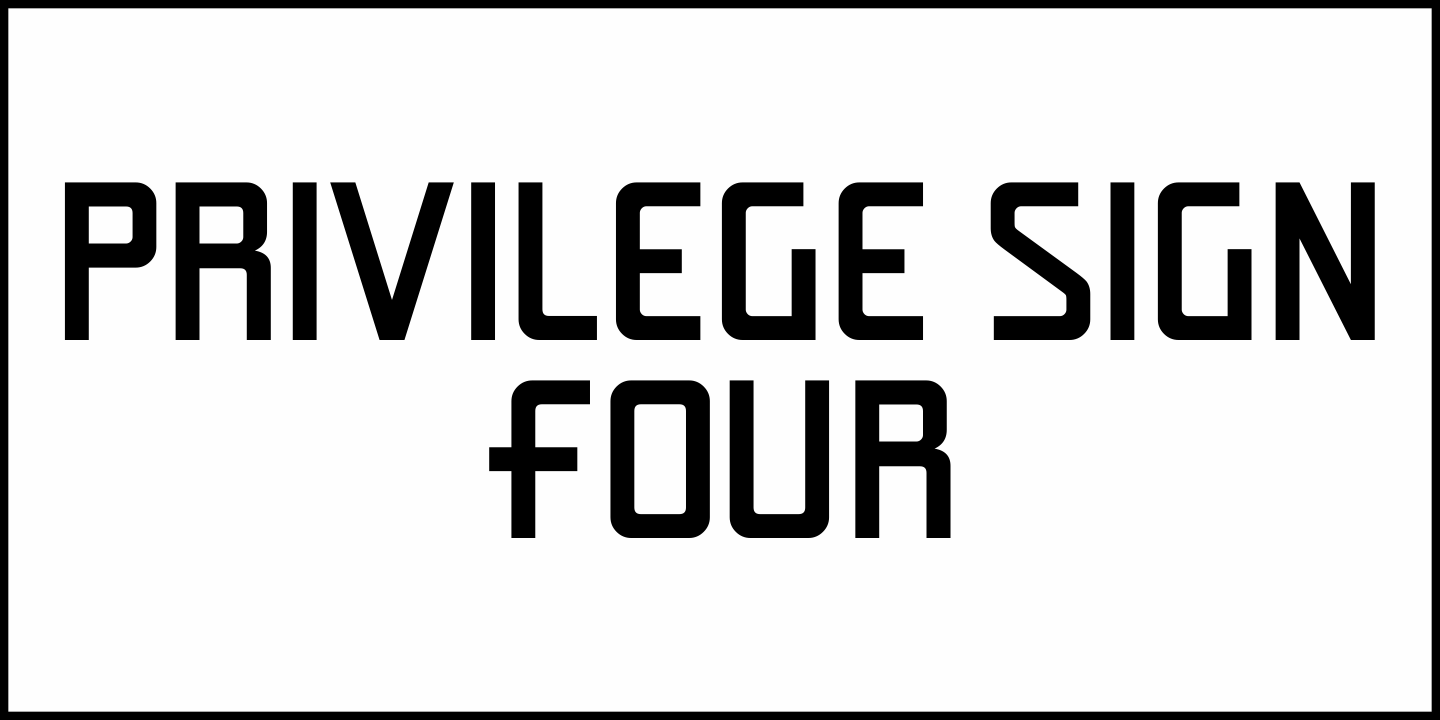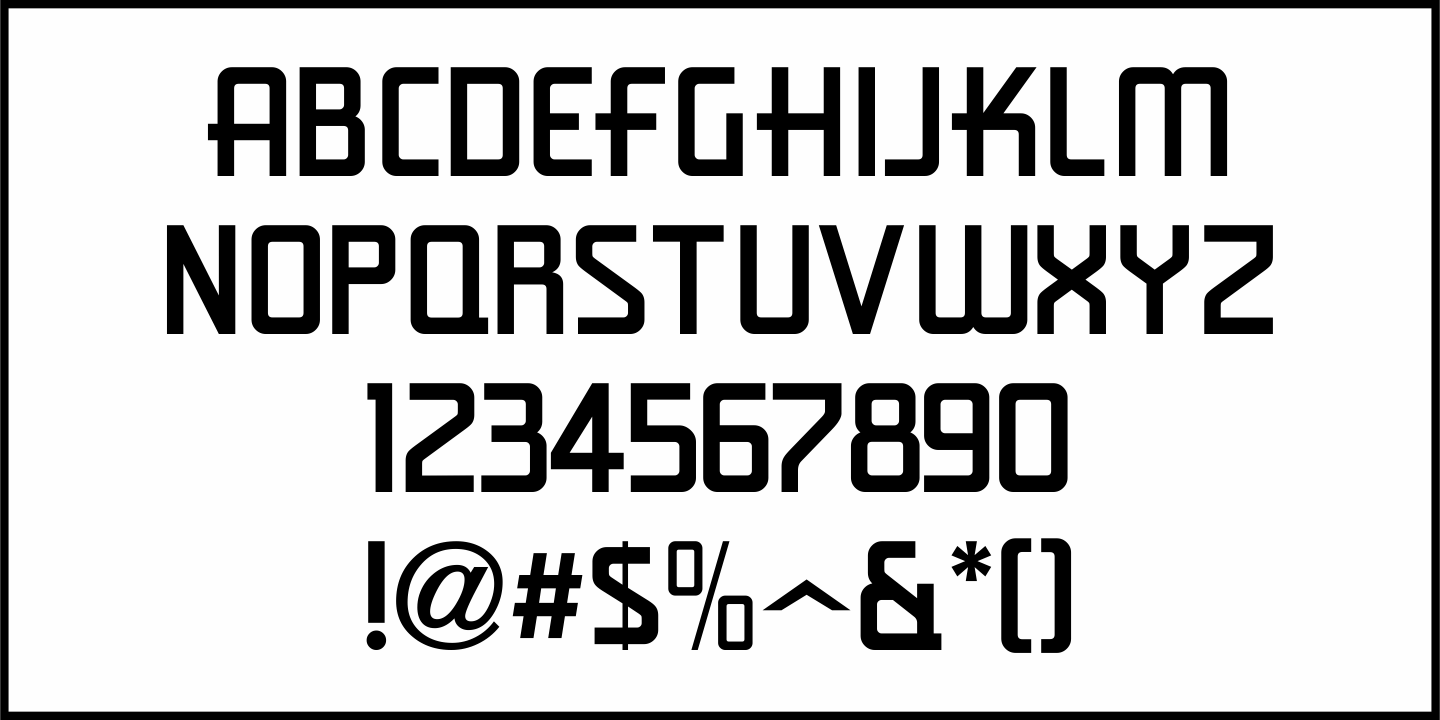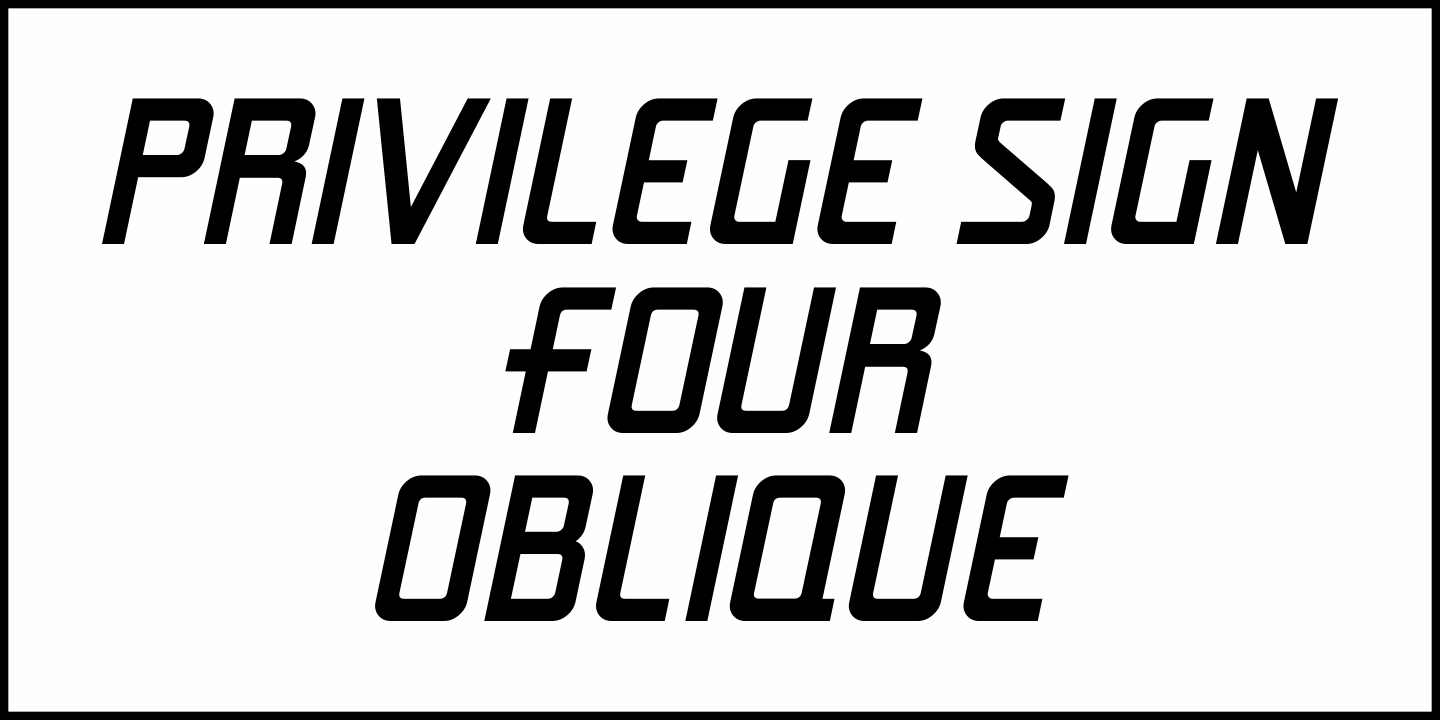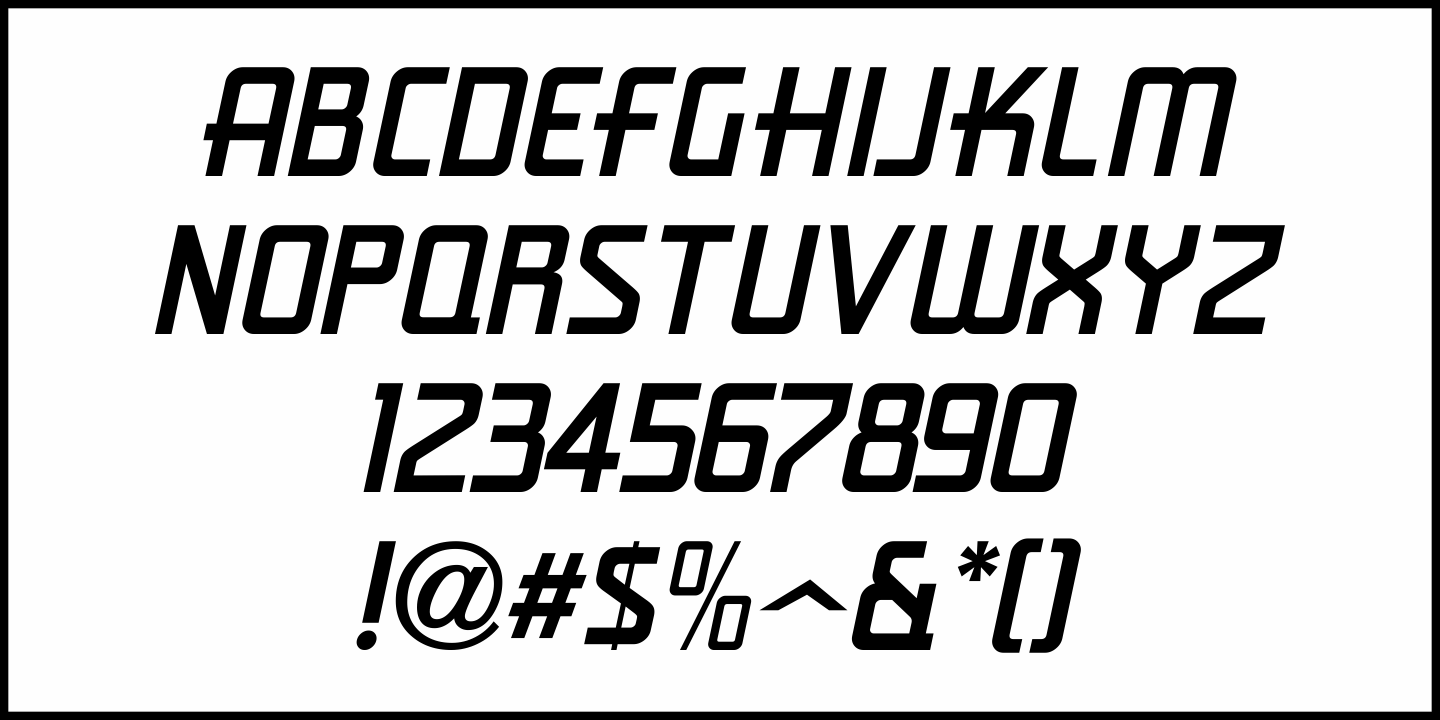
Privilege Sign Four JNL
Unique and decorative signage for many businesses of the 1930s and 1940s had what was referred to as “privilege signs” provided by one of the major cola brands.
Consisting of the brand’s emblem on a decorative panel, the remainder of the sign would carry the desired message of the storekeeper.
Privilege Sign Four JNL recreates another lettering selection used by the soda company in both regular and oblique versions. It was modeled after lettering on one of those vintage signs.
This is the third companion font to the original Privilege Sign JNL, which recreates the condensed sans serif lettering of other privilege signs from the 1950s and early 1960s.